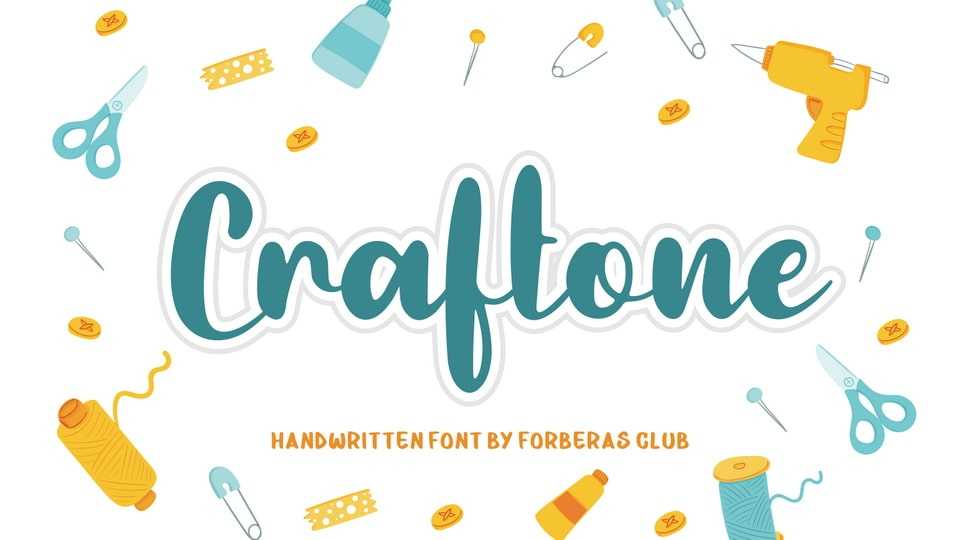
Download Craftone font, a script typeface inspired by modern and casual handwriting. Craftone font is especially designed for crafts, school and kids projects.